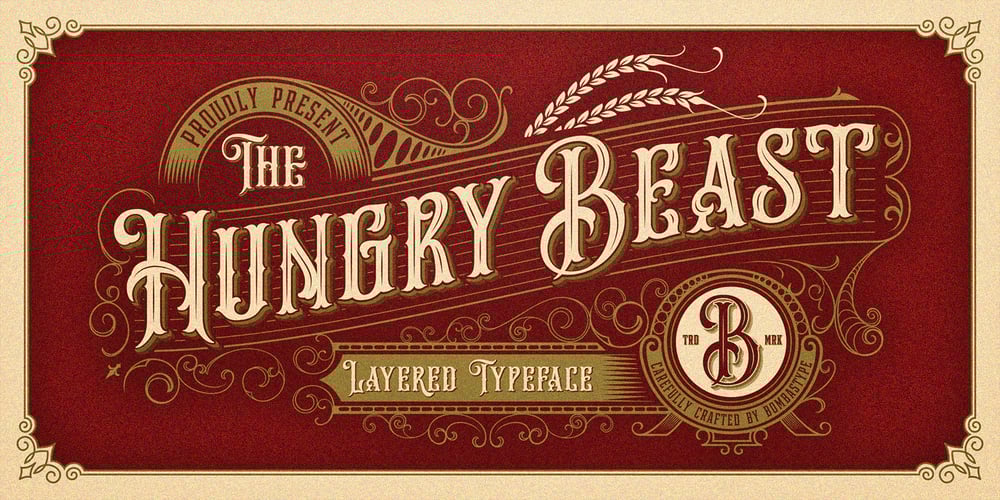
Hungry Beast
Hungry Beast font
Hungry Beast Font Family was designed by Amir Subqi Setiaji, Bangkit Tri Setiadi and published by Bombastype. Hungry Beast contains 5 styles and family package options. Hungry Beast is a Victorian theme font. With another old fashioned feel on it, because we were very passionate with that kind of typeface style. This typeface will be suitable for a lot of display purposes like you can see in our previews for the work samples. And don’t forget about the Layer system, because who hates layers typeface? We also give you the ornaments for FREE. So let’s try this Beast asap.